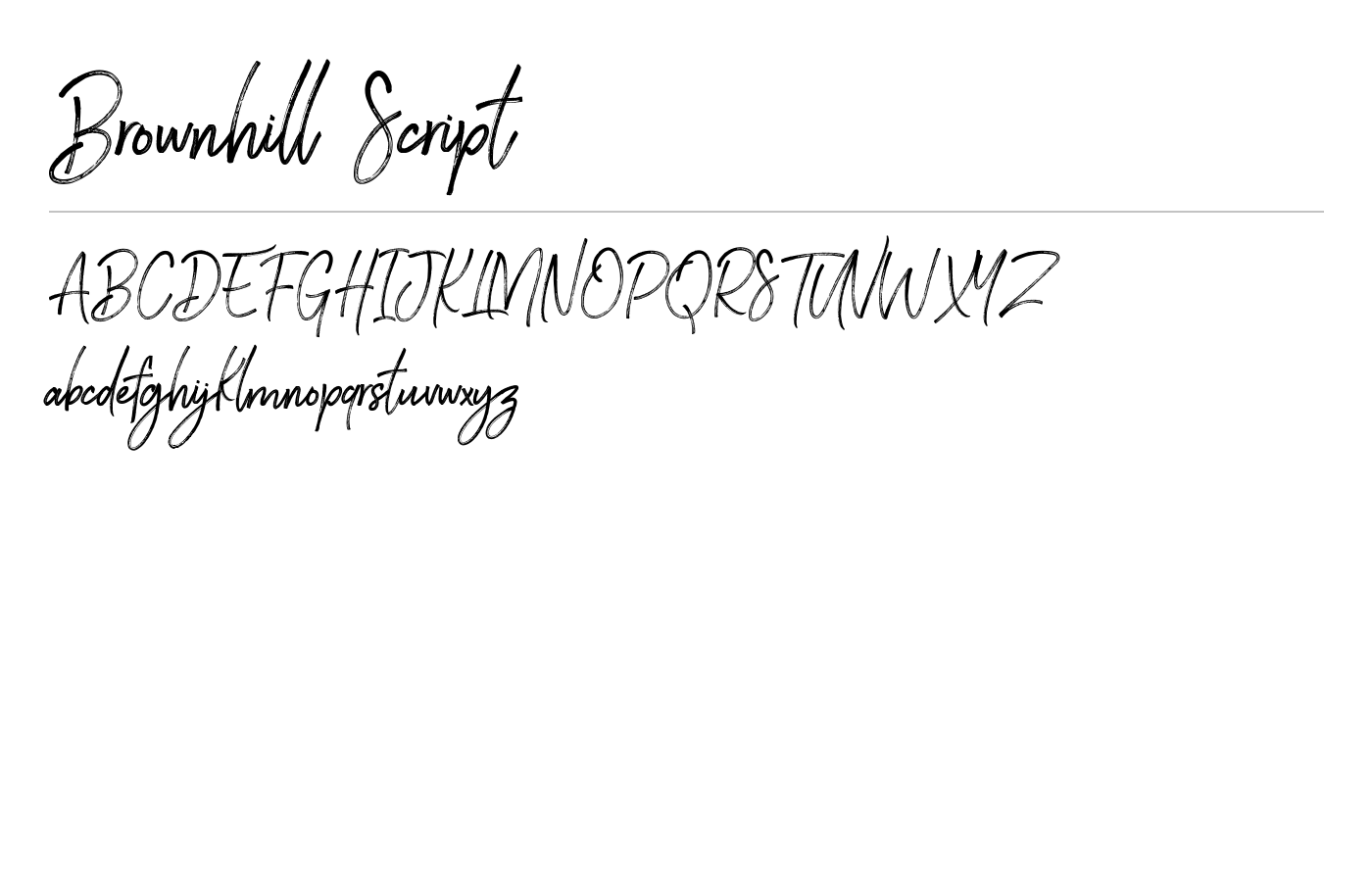
Brownhill Script is a lively, modern handwritten font with a casual and artistic feel, characterized by its textured, brush-like strokes and natural flow. Its slender, slightly irregular letterforms make it perfect for creative projects, personal branding, and invitations where a warm, personal touch is desired. This font works best in headlines, logos, and packaging that aim to convey friendliness and originality.
Brownhill Script Font
About Brownhill Script Font
| Designer | Faisal Tanjung |